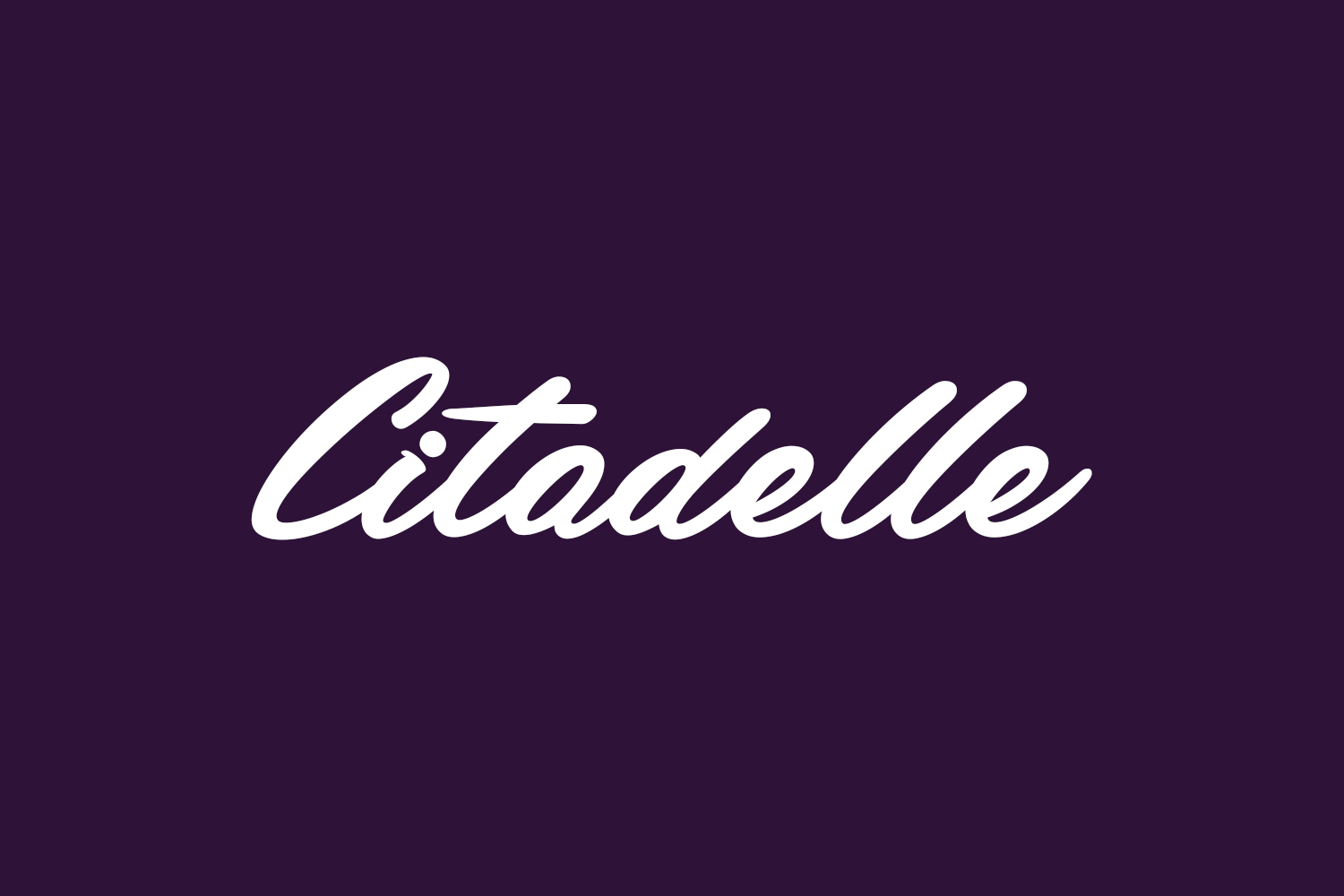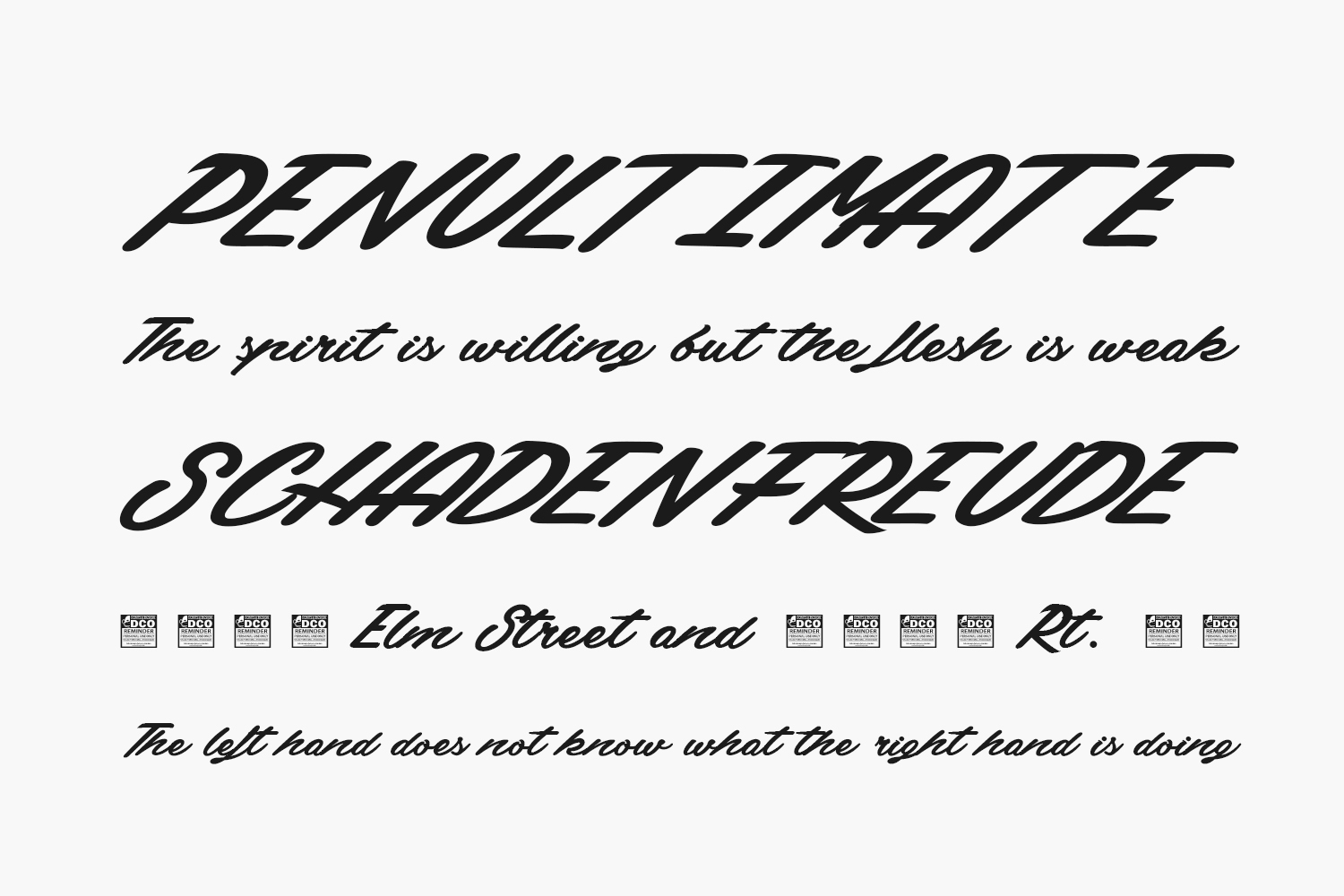
Citadelle Free Font is a breathtaking script that exudes sophistication and glamour. Its fluid lines and ornate details are reminiscent of classic calligraphy, lending an air of elegance to any project. Whether you’re designing a luxury brand, creating a beautiful wedding invitation, or simply adding some class to your blog header, the Citadelle font is the perfect choice for elevating your design to the next level.